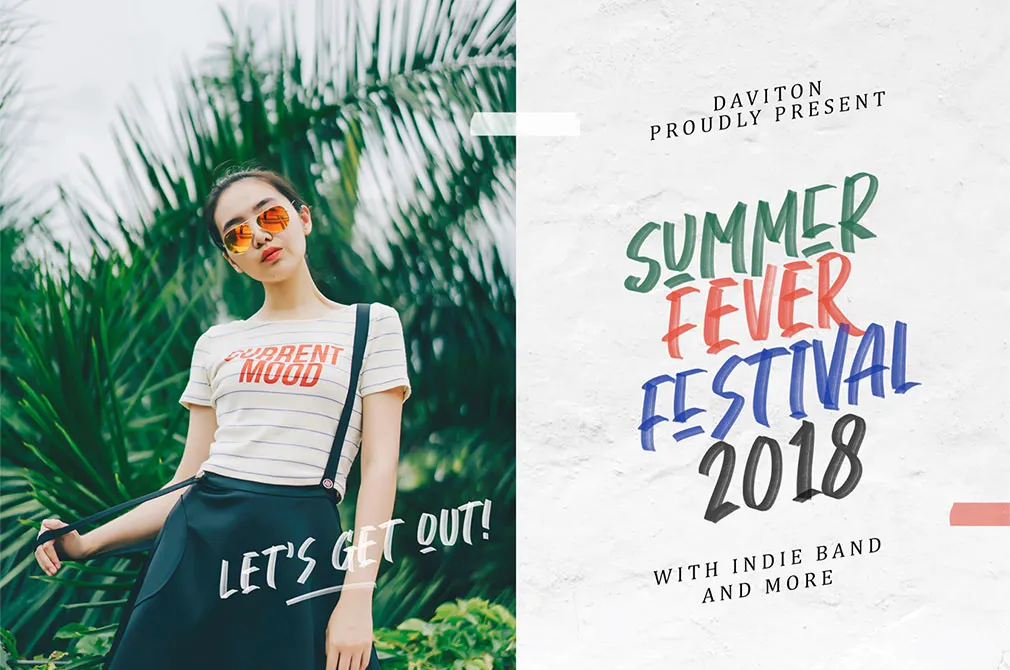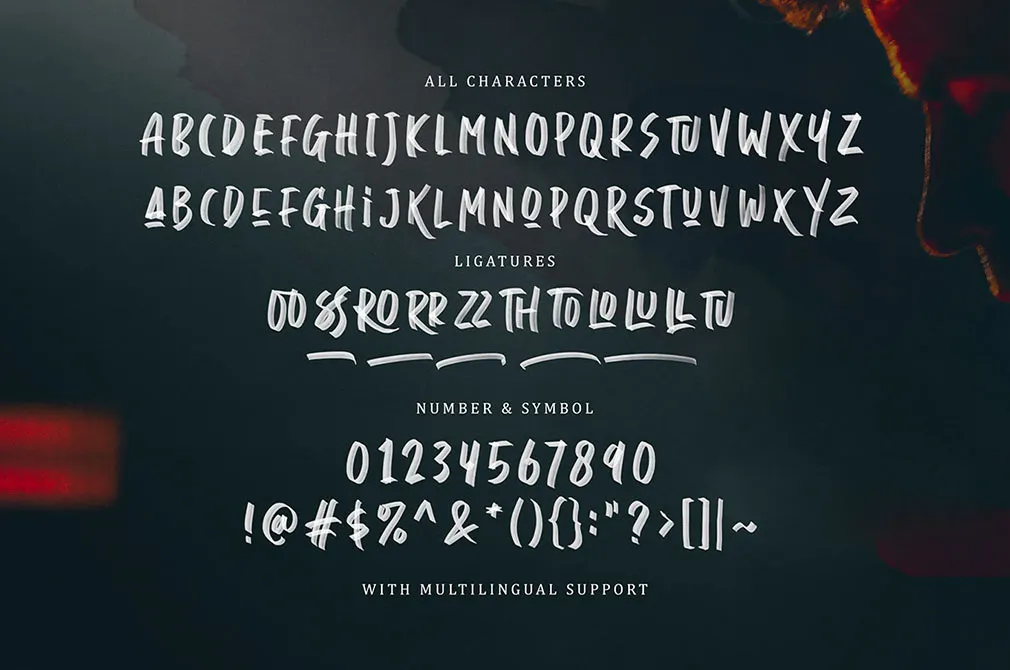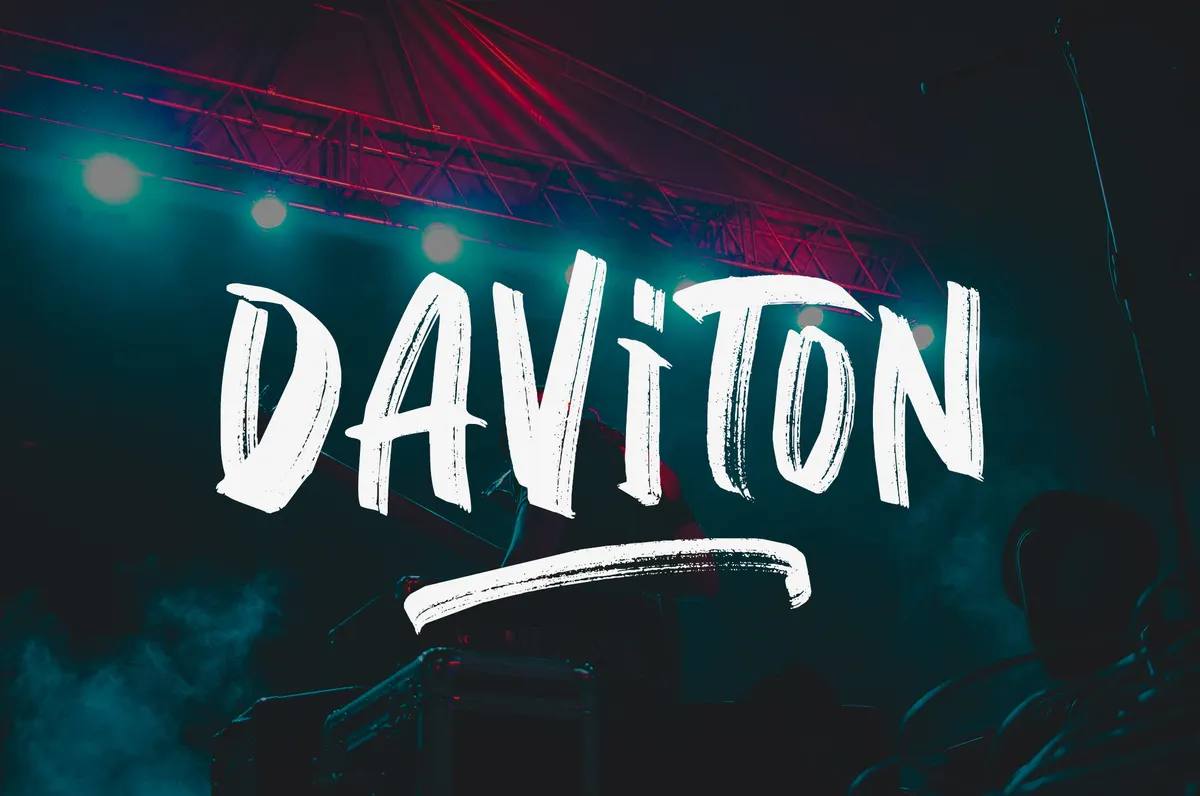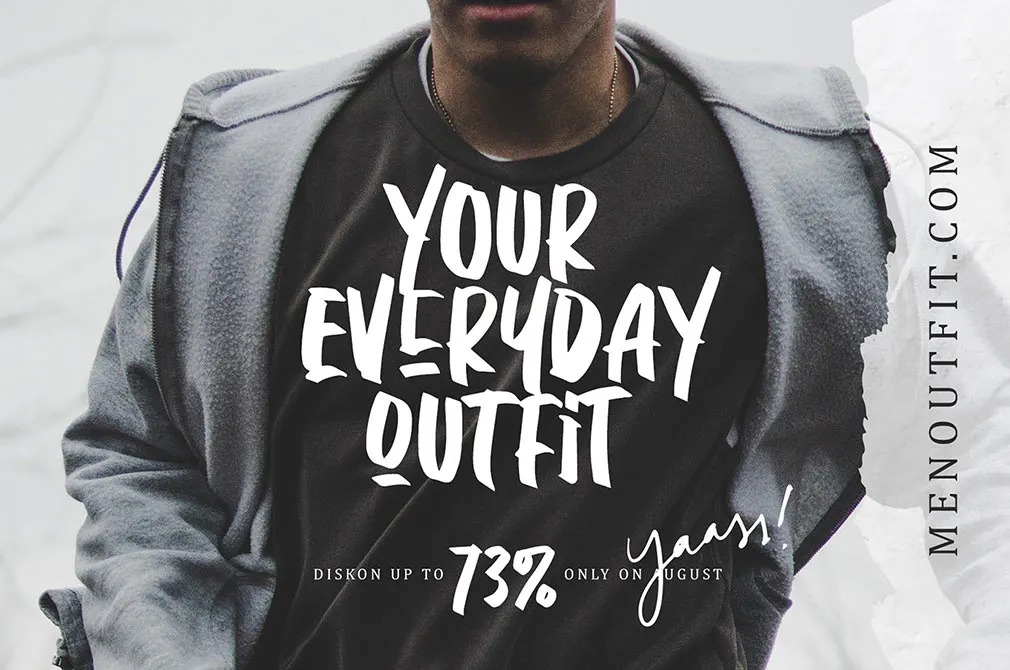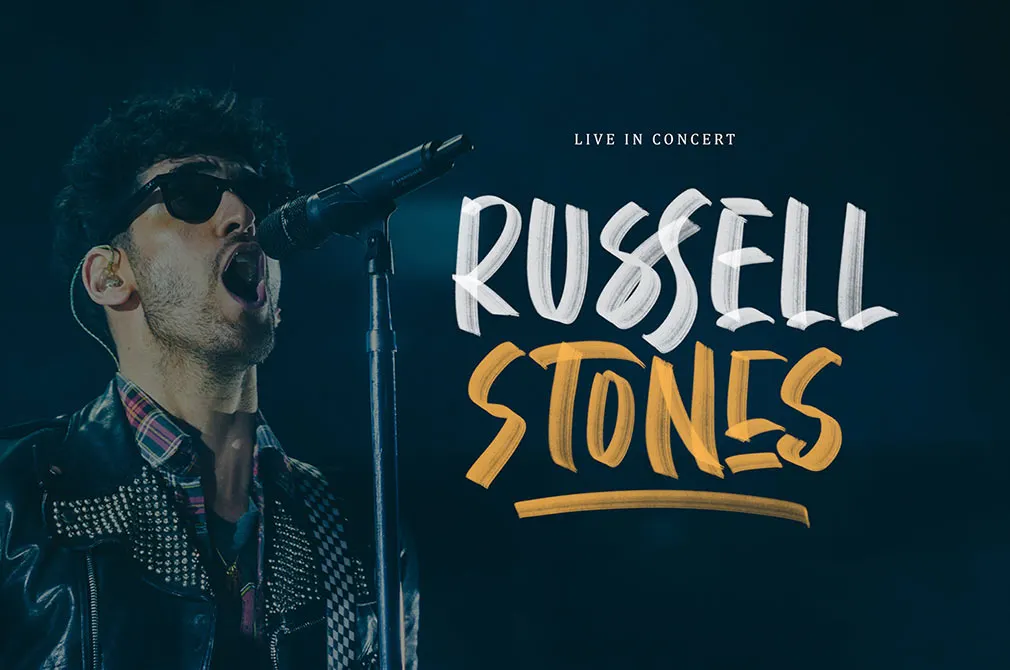
Daviton SVG Freestyle Font
Don't you think that fonts in a realistic handwritten style look very engaging and attractive? The deal takes an even more pleasant turn if we speak about SVG typeface!
Packed with realistic hi-res symbols, Daviton recreates the feeling of a real handmade font. With a convenient option to choose between 3 styles (SVG, solid and brush) you can adjust it to your ideas and not subdue to the lack of expression means. Ligatures, numbers, punctuation, and underline can also be found inside the archive, broadening your creative horizons! Include everything into your commercial, banners, promotion pamphlets, website designs, anything it will look fresh, stylish and captivating!